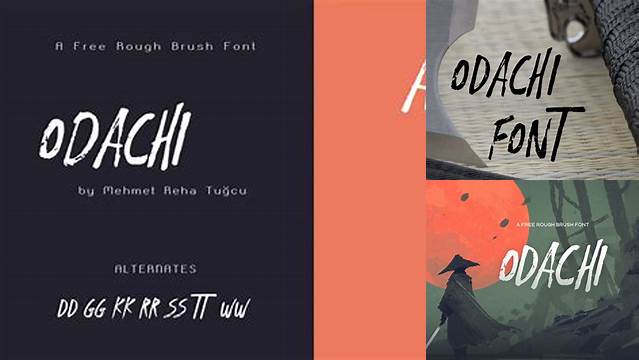
Odachi Free Font: A Sword-Like Typography Guide
Alright, guys, let's dive into the world of the Odachi free font! This font is not your average, run-of-the-mill typeface; it's got a distinct personality, a certain je ne sais quoi that makes it stand out. Think of it as a digital samurai sword – sharp, elegant, and ready to make a statement. In this guide, we'll explore everything you need to know about the Odachi font, from its origins and design to its various uses and how to get your hands on it for free. Get ready to sharpen your typography skills! We will give you the details and the information you are looking for.
H2: What is the Odachi Font and What Makes It Unique?
So, what exactly is the Odachi free font? At its core, it's a display font, meaning it's designed primarily for headlines, titles, and other situations where you want to grab attention. The key characteristic of the Odachi font is its inspiration: the Japanese odachi sword. This is reflected in the font's design, with its sharp angles, flowing lines, and overall sense of power and precision. Unlike many other fonts, which might be inspired by calligraphy or geometric shapes, the Odachi font takes its cue from a weapon, giving it a unique and impactful visual presence. This sword-inspired design isn't just aesthetic; it also contributes to the font's readability. The designers have cleverly balanced the sharpness of the angles with enough openness in the letterforms to ensure that the font remains legible, even at larger sizes. The Odachi font offers a striking visual experience. Using the Odachi free font in the correct situation will give you a unique impression. The bold strokes and angular details draw the eye. It is especially effective in a layout to create a high-impact look. Think about how the font's design translates to its use. Because it is based on a sword, it naturally conveys strength, elegance, and precision. It's the perfect choice for projects that require a sense of authority and command attention. The font is not just about its visual appeal. The Odachi free font has a sense of history and culture. The designers of the font have researched and understand the cultural importance of the odachi sword. This background has influenced the design and how the font is used today. When you choose this font, you are communicating a story beyond just the words.
H3: The Design Philosophy Behind the Odachi Font
Understanding the design philosophy behind the Odachi free font is key to appreciating its full potential. The font isn't just a collection of characters; it's a carefully crafted expression of a particular aesthetic. The designers likely began with the core principles of the odachi sword. They studied its form, its balance, and its function. They then translated those principles into the digital realm, creating letterforms that mirror the sword's sharpness, elegance, and strength. The design process likely involved multiple iterations, experimenting with different angles, weights, and spacing to achieve the desired effect. The goal was to create a font that was visually striking and also functional. The design also considers readability and versatility. While the font has a strong visual impact, it's important that it remains easy to read and can be used across a variety of applications. This requires balancing the dramatic elements with more subtle design choices. The design of the Odachi free font has many layers that combine the aesthetic with the functional. The designers were able to create a font that is visually stunning and easy to use. It's a testament to the power of thoughtful design and a deep understanding of both form and function. The typeface embodies a fusion of cultural inspiration and modern design techniques. This can be seen in every curve and line of the font. It goes beyond mere aesthetics, with each character telling a story. Using it will create a connection with the rich cultural heritage.